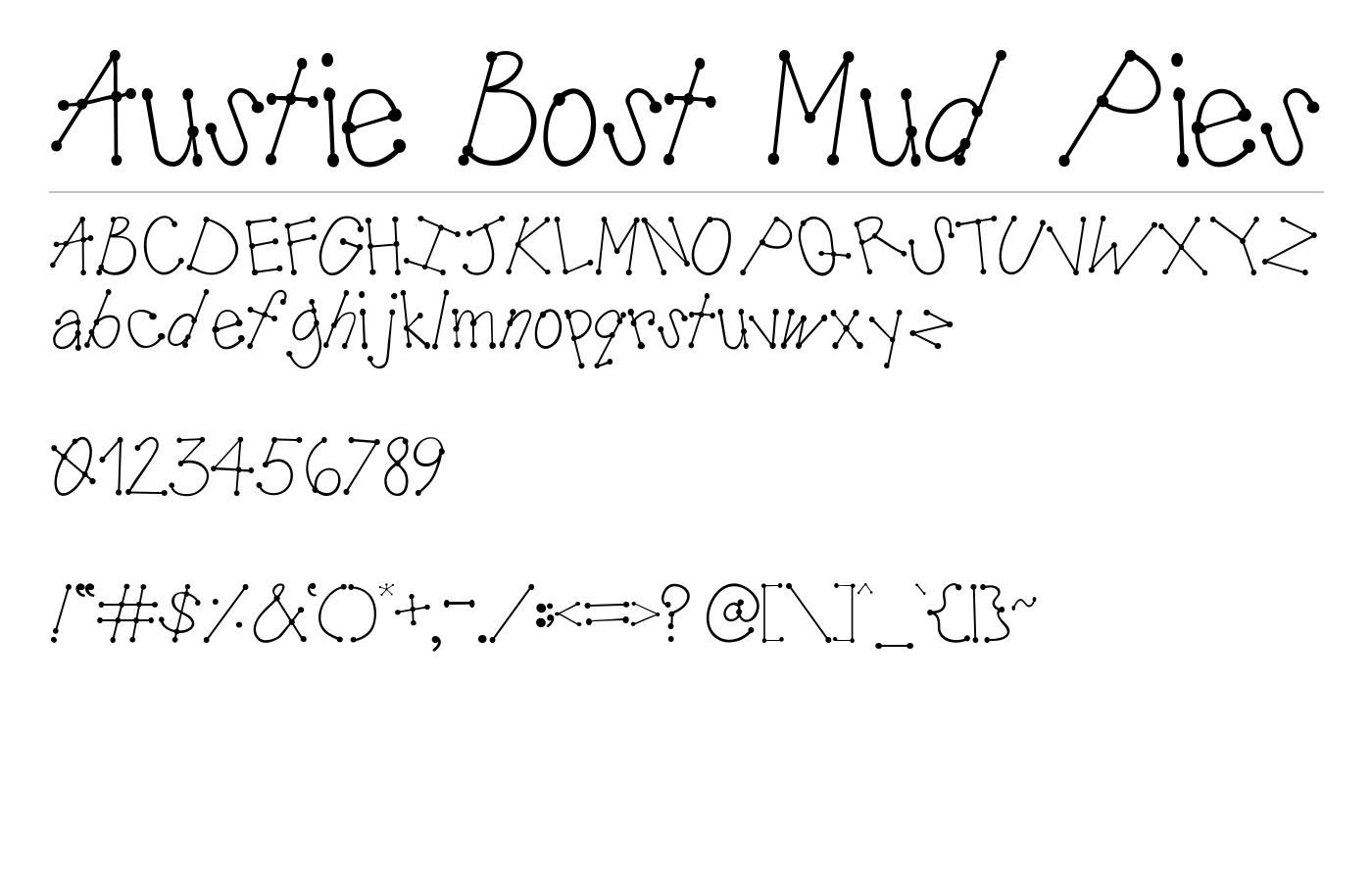
Austie Bost Mud Pies is a whimsical handwritten font with a playful, childlike charm, featuring thin, uneven strokes connected by small dots, giving it a unique, handcrafted feel. Its irregular letterforms and light weight make it perfect for creative projects that want to convey fun, creativity, and approachability, such as children's books, casual invitations, and artistic branding. This font shines in designs that benefit from a quirky, informal touch rather than formal or corporate tones.
Austie Bost Mud Pies Font
About Austie Bost Mud Pies Font
| Font family | Austie Bost Mud Pies Font |
| Designer | Austin Owens |